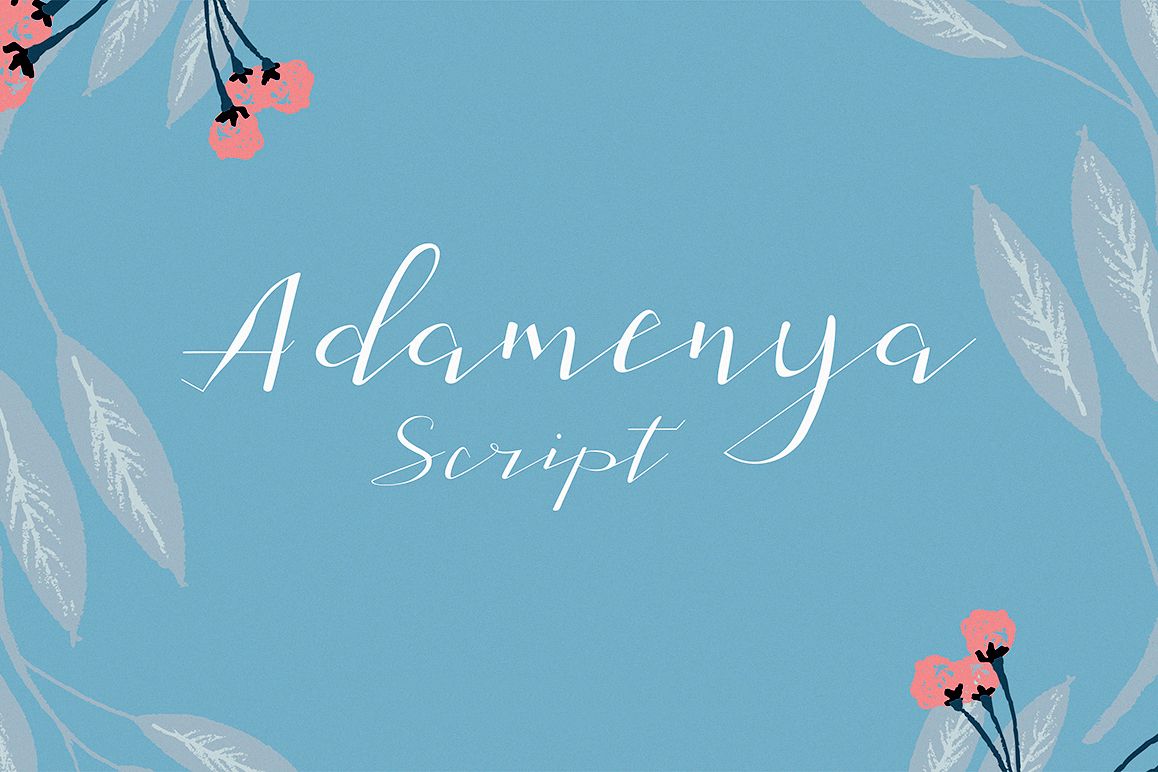
Adamenya Script
Adamenya Script is a modern calligraphy font with unique character, irregular baseline and girly. Those all will make you work easily to create : Wedding invitation, Posters, Logos, Print, Quotes, Headers etc Features: Uppercase -Lowercase -Numerals -Basic punctuations Available in .OTF and .TTF formats. Thanks!!!